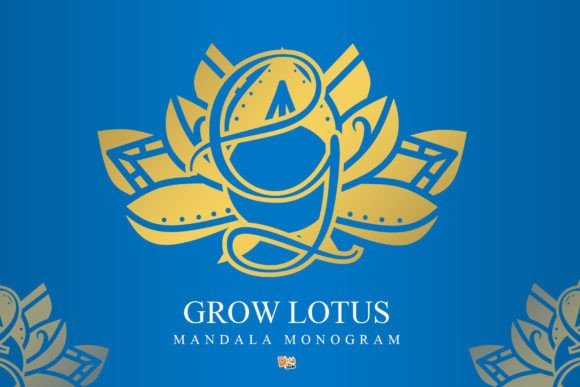
The Art of Unique Typography: Unlocking the Power of Grow Lotus Mandala Monogram Font
Have you ever found yourself in a creative moment, surrounded by endless possibilities and inspiration? Maybe it’s the sound of a gentle stream, the smell of a blooming garden, or the sight of a vibrant mandala. Whatever sparks your creativity, it’s moments like these that remind us of the beauty and power of art. For designers, typography is an essential element in bringing their vision to life, and the right font can make all the difference.
Enter the Grow Lotus Mandala Monogram Font, a stunning and unique decorative font that draws inspiration from the intricate patterns of mandala art. This elegant font is perfect for adding a touch of sophistication to your craft projects, logos, or any design element that demands attention. With the Grow Lotus Mandala Monogram Font, designers can unlock a world of creative possibilities and take their designs to the next level.
Grow Lotus Mandala Monogram Font Key Features
- Unique Monogram Font Design: The Grow Lotus Mandala Monogram Font features intricate, hand-drawn designs that resemble lotus flowers, making it perfect for creative and artistic projects.
- Unicode Support: The Grow Lotus Mandala Monogram Font supports a wide range of Unicode characters, ensuring that it can be used for various languages and scripts.
- Customizable: This font is fully editable, allowing designers to customize and manipulate the design to suit their specific needs.
Grow Lotus Mandala Monogram Font Review
Overall, I think the Grow Lotus Mandala Monogram Font is a beautiful and unique addition to any design project. ✨ The intricate, hand-drawn design of the lotus flower and the mandala-inspired patterns add a touch of elegance and sophistication to any text.
The font’s versatility is one of its strongest points. It can be used for a wide range of applications, from wedding invitations and stationery to social media graphics and branding materials.
- The intricate, hand-drawn design of the lotus flower and mandala patterns add a touch of elegance and sophistication.
- The font’s versatility makes it suitable for a wide range of applications.
- The font is highly customizable, allowing designers to adjust the size, color, and spacing to fit their needs.
- ⚠️ The font may be too ornate for some designs, potentially overwhelming the content.
- ⚠️ Some users may find the font difficult to read in certain sizes or at high resolutions.
Overall, I think the Grow Lotus Mandala Monogram Font is a great choice for designers looking to add a touch of elegance and sophistication to their projects. With a little creativity and experimentation, this font can be used to create truly stunning designs.
For the best results, use the Grow Lotus Mandala Monogram Font for titles, headings, and decorative text.
It’s perfect for creating elegant invitations, wedding stationery, and event branding.
Experiment with different font sizes and colors to achieve a unique look.
Pacifico is a beautiful, elegant script font that works well for invitations, wedding designs, and other formal events. It has a more subtle, classic look compared to Grow Lotus Mandala Monogram Font, which is more intricate and ornate. Pacifico is a good choice when you want a sophisticated look without the complexity of a mandala design.
Great Vibes is a modern, cursive font that is perfect for creating a relaxed, beachy vibe. It has a more fluid, connected look compared to Grow Lotus Mandala Monogram Font, which is more stylized and decorative. Great Vibes is a good choice when you want to create a casual, laid-back atmosphere.
Q: Is the Grow Lotus Mandala Monogram Font compatible with right-to-left languages?
Yes, the Grow Lotus Mandala Monogram Font is designed to be compatible with right-to-left languages, such as Arabic and Hebrew. The font includes the necessary glyphs and formatting to ensure proper rendering of text in these languages. However, please note that some design software may require additional configuration to support right-to-left languages.